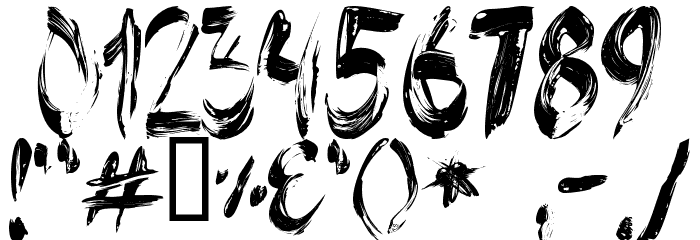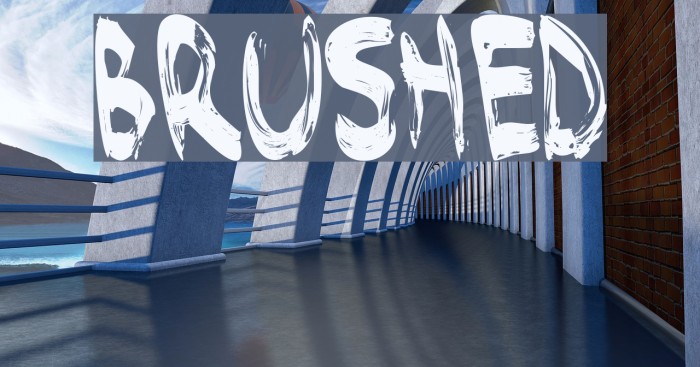
Brushed Font
This font exudes a dynamic and artistic flair, characterized by its bold, brush-stroke appearance. Each letter is crafted with a sense of movement, as if painted with a swift, confident hand. The strokes vary in thickness, creating a sense of depth and texture that is both visually striking and expressive. The uppercase and lowercase letters maintain a consistent style, with jagged edges and irregular forms that add to the font's raw, energetic feel. Numbers and special characters are equally bold, ensuring a cohesive look across all text elements. This font is perfect for projects that require a touch of creativity and individuality.
A bold, brush-stroke font with dynamic, artistic flair.
- Proposed Projects: Ideal for artistic posters, creative branding, album covers, and expressive headlines.
- Overall Style: Artistic, Expressive